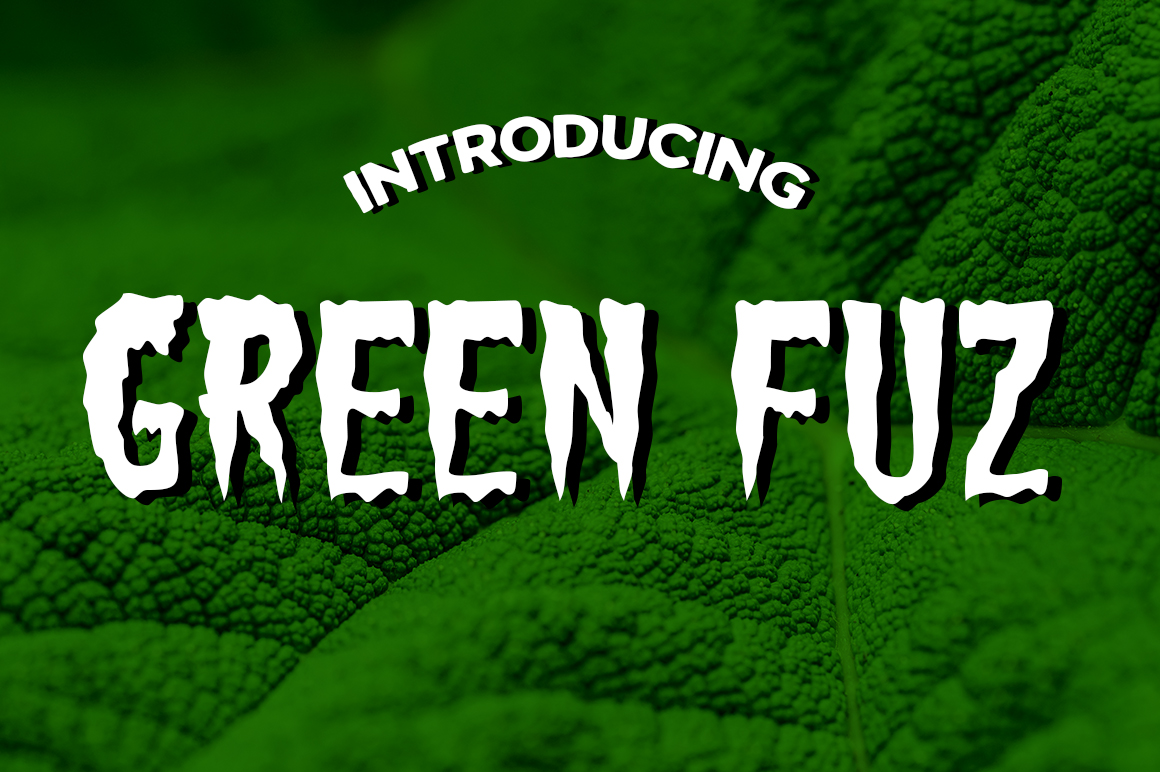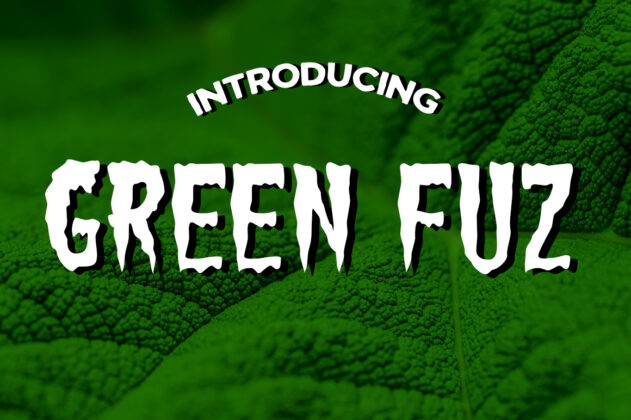
Green Fuz is a gruesome free font inspired by American horror comics of the 1950’s. This kitschy decorative font is a great display or headline font, and is offered for free from Typodermic.